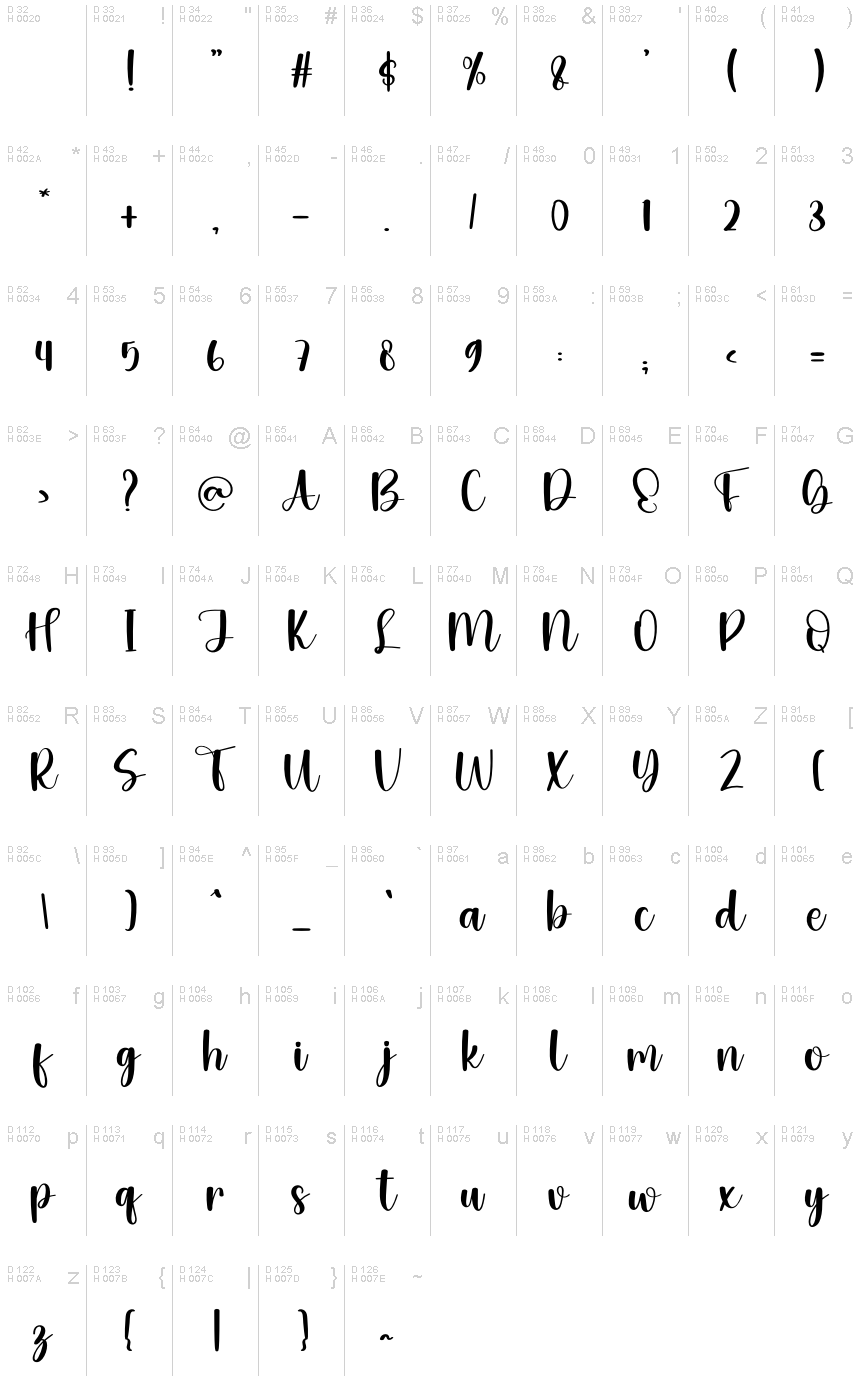
Family Gathering
Family Gathering font by PiPi Creative is an elegant and cursive handwritten free font with decorative elements. The flowing character design has smooth curves in addition to a few decorative elements that give the letters a playful vibe. Overall, the typeface was made to appear authentically handcrafted.
Use Family Gathering in headings for restaurants, businesses that promote organic living such as cosmetics or food products. It’s also highly fitting for branding projects especially those relating to fashion.